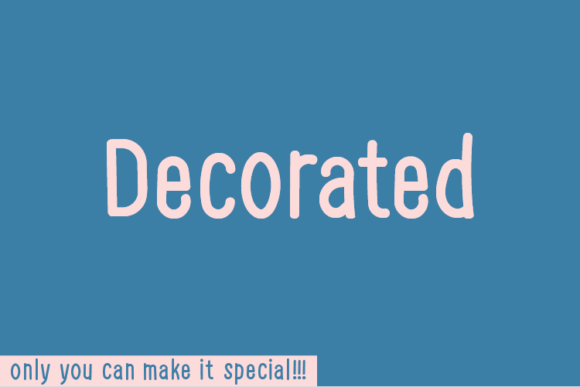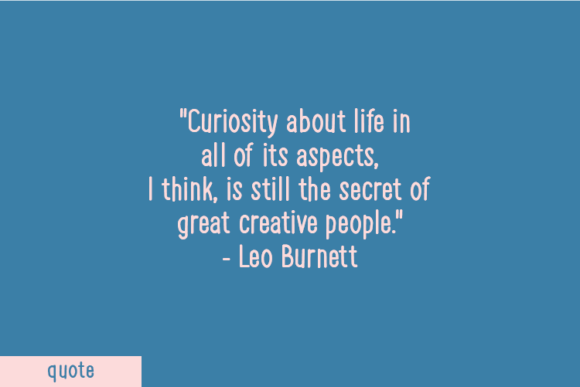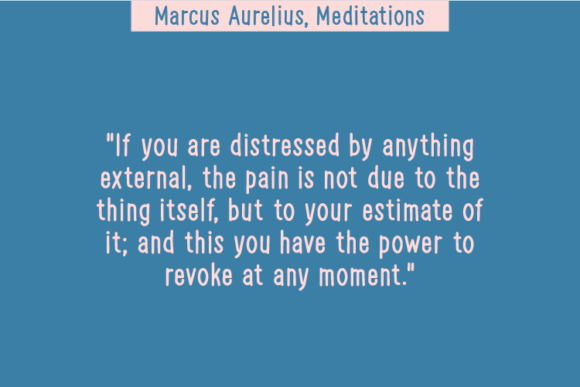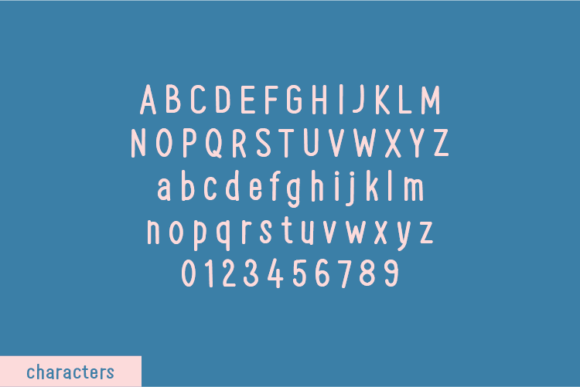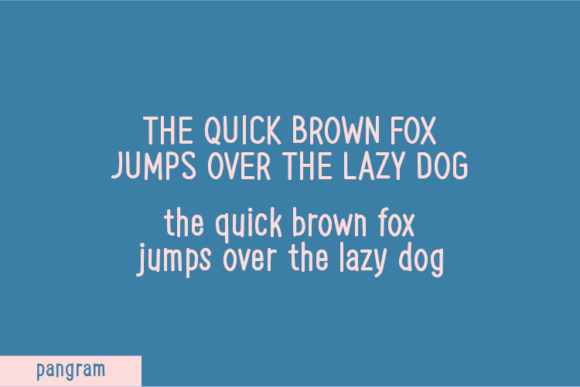
Decorated Font
About Decorated Font
The Decorated Font Download is a natural handwritten typeface that stands out for its originality and raw character. Unlike many digital fonts that are carefully refined, Decorated was created without altering a single node in each character’s indentation. This unique process preserves the authentic feel of real handwriting, making it both interesting and distinctive.
With its imperfect yet stylish appearance, Decorated offers a handcrafted charm that adds personality to any design. Whether you are creating quotes, notes, t-shirts, posters, or product packaging, this font delivers a casual yet professional edge. Its organic strokes provide authenticity while still maintaining readability, making it a versatile choice for both personal and commercial projects.
Features of Decorated Font
• Authentic handwritten style created without node modifications
• Natural flow and rhythm for a handcrafted look
• Complete character set including uppercase, lowercase, numbers, and punctuation
• Readable yet artistic strokes adaptable to print and digital use
• Unique design aesthetic that feels organic and original
Best Uses for Decorated Font
• Quotes and social media posts – Add a natural handwritten feel to inspirational text
• Apparel and merchandise – Perfect for t-shirts, tote bags, mugs, and lifestyle branding
• Stationery and planners – Give journals, cards, and notes a personal handwritten touch
• Product packaging and labels – Great for organic, artisanal, or handmade goods
• Posters and flyers – Create standout headlines with raw handwritten character
• Logos and branding – Ideal for businesses seeking a unique and authentic identity
• DIY projects and crafts – Adds charm to personal designs and handmade creations
Why Choose Decorated Font
The Decorated Font Download is valued for its authenticity and originality. By keeping every character’s indentation untouched, it retains the raw, handcrafted quality that makes it so distinctive. Designers love it because it brings warmth and uniqueness while remaining easy to use across different formats.
Unlike polished script fonts, Decorated embraces its imperfections, making it perfect for projects where authenticity matters more than perfection. Its natural flow ensures your typography feels human, creative, and memorable.
The Decorated Font Download is a unique handwritten typeface that combines originality with usability. With its raw strokes, handcrafted aesthetic, and versatile applications, it’s the perfect font for quotes, apparel, packaging, stationery, and more.